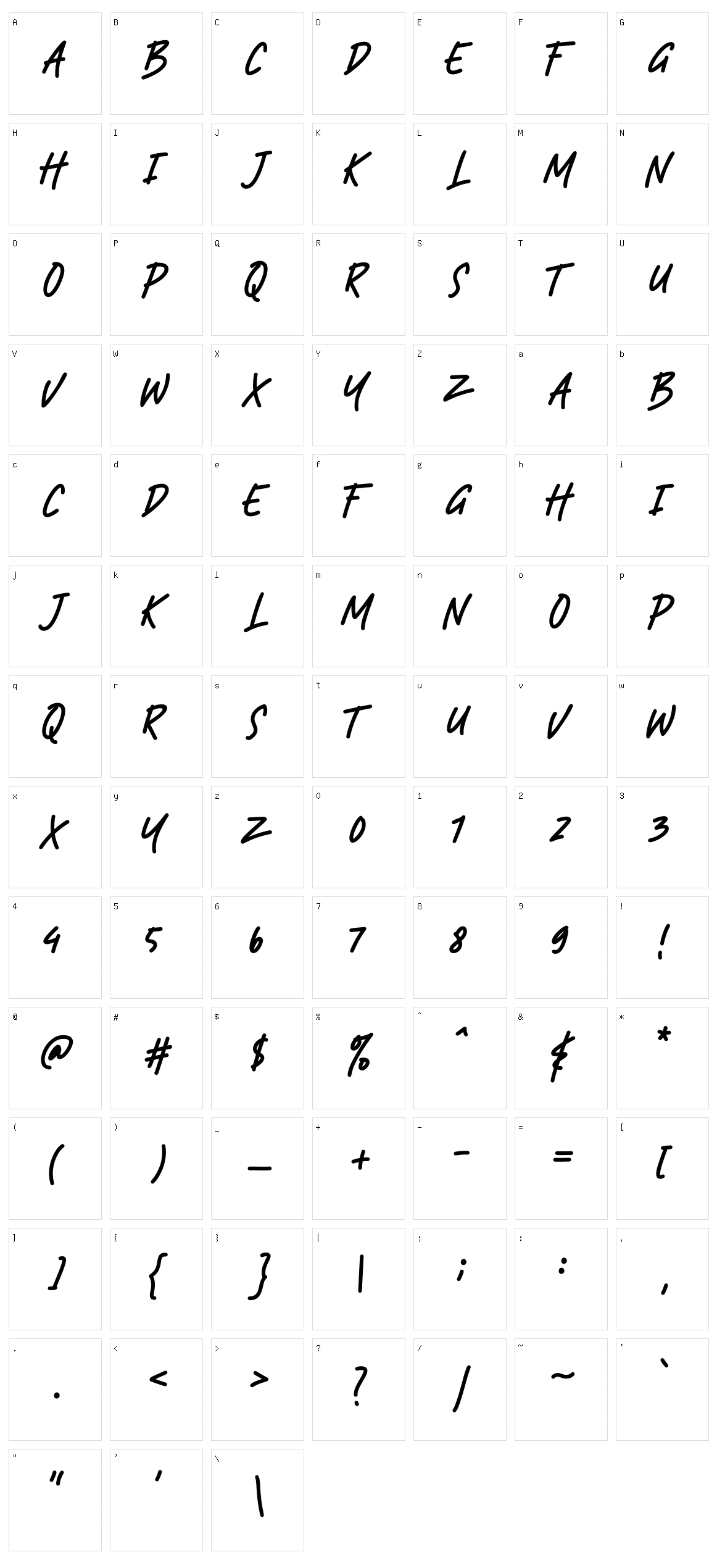
RAMPHOX strong display font. With extra attention to fast and straightforward streaks,
RAMPHOX is guaranteed to deliver hard and fast messages for logos, clothing, quotes
product packaging, or anything that requires a turbo typographic boost.